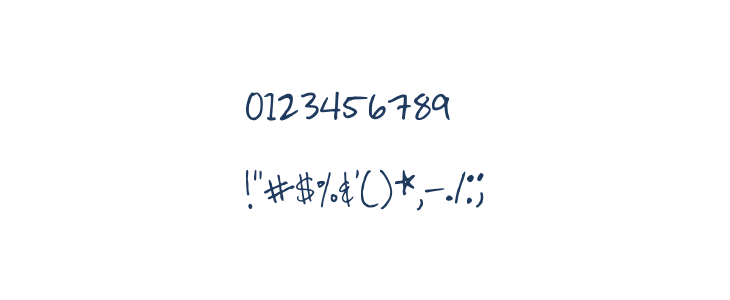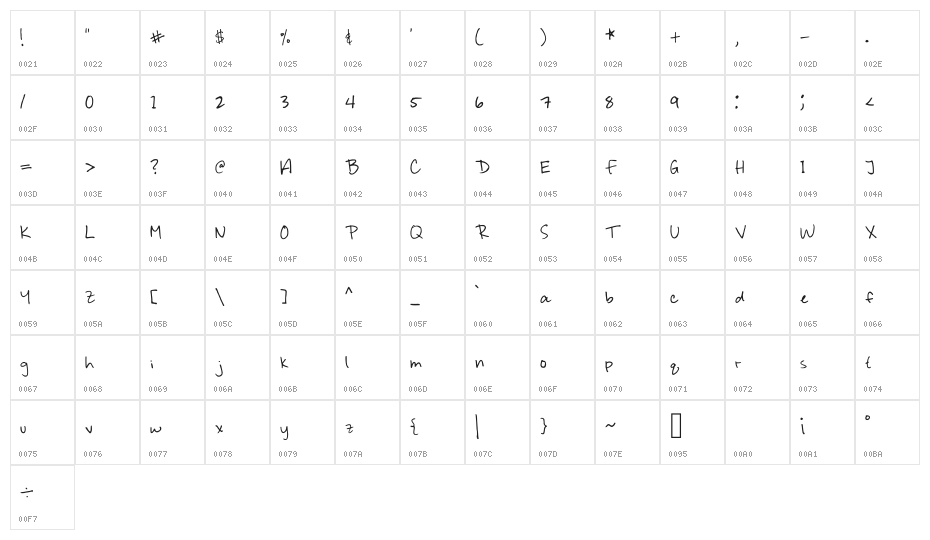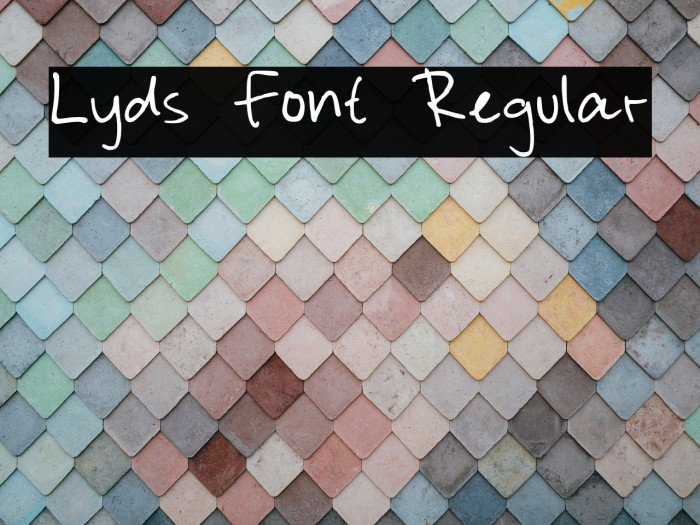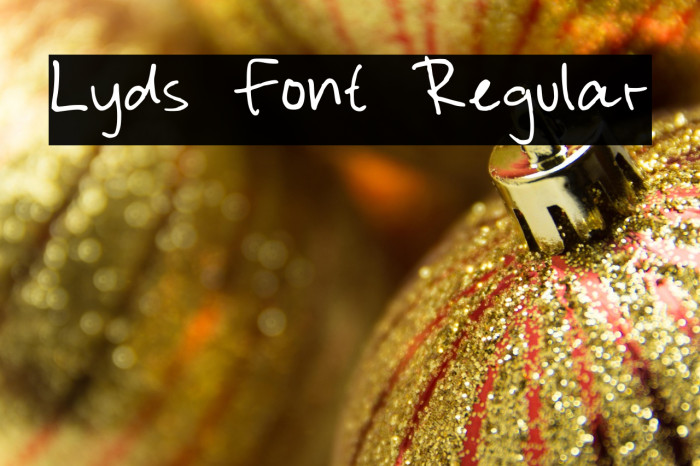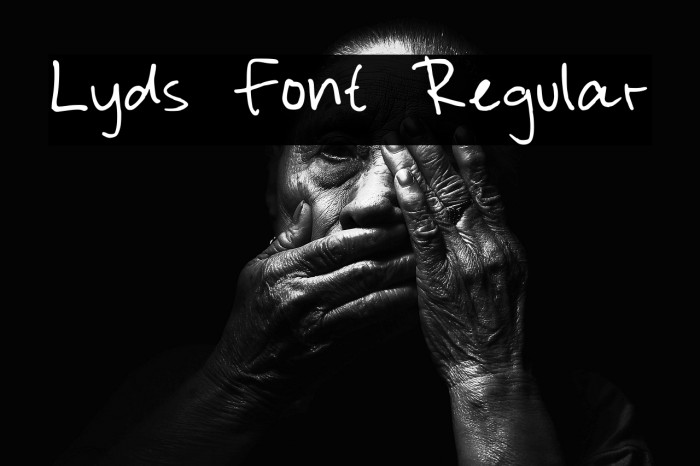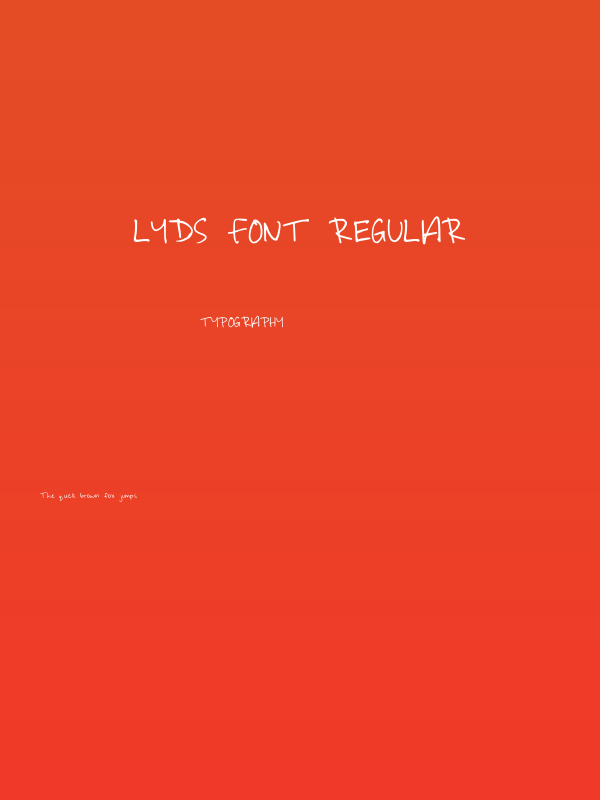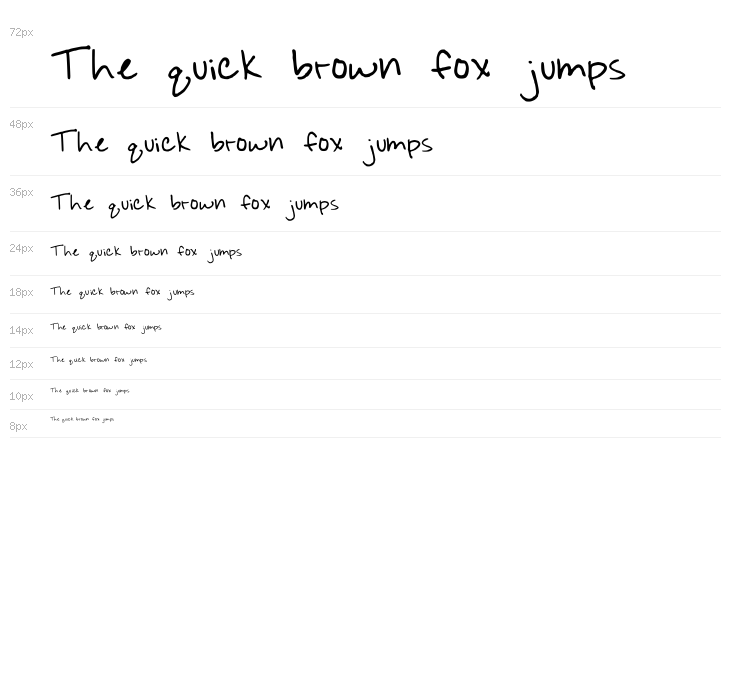
Lyds Font Regular Font
Lyds Font Regular Description
This font exudes a casual and handwritten style, characterized by its playful and informal appearance. The letters are slightly irregular, mimicking the natural flow of handwriting. The strokes are consistent in thickness, providing a uniform look while maintaining a personal touch. The uppercase letters are bold and prominent, while the lowercase letters are more relaxed and flowing. Numbers and special characters are crafted with the same informal style, making them blend seamlessly with the alphabet. This font is perfect for projects that require a personal and approachable feel.
| Use Case | Headlines, Informal text, Personal projects |
| Proposed Projects | Ideal for personal notes, invitations, greeting cards, and informal branding projects. |